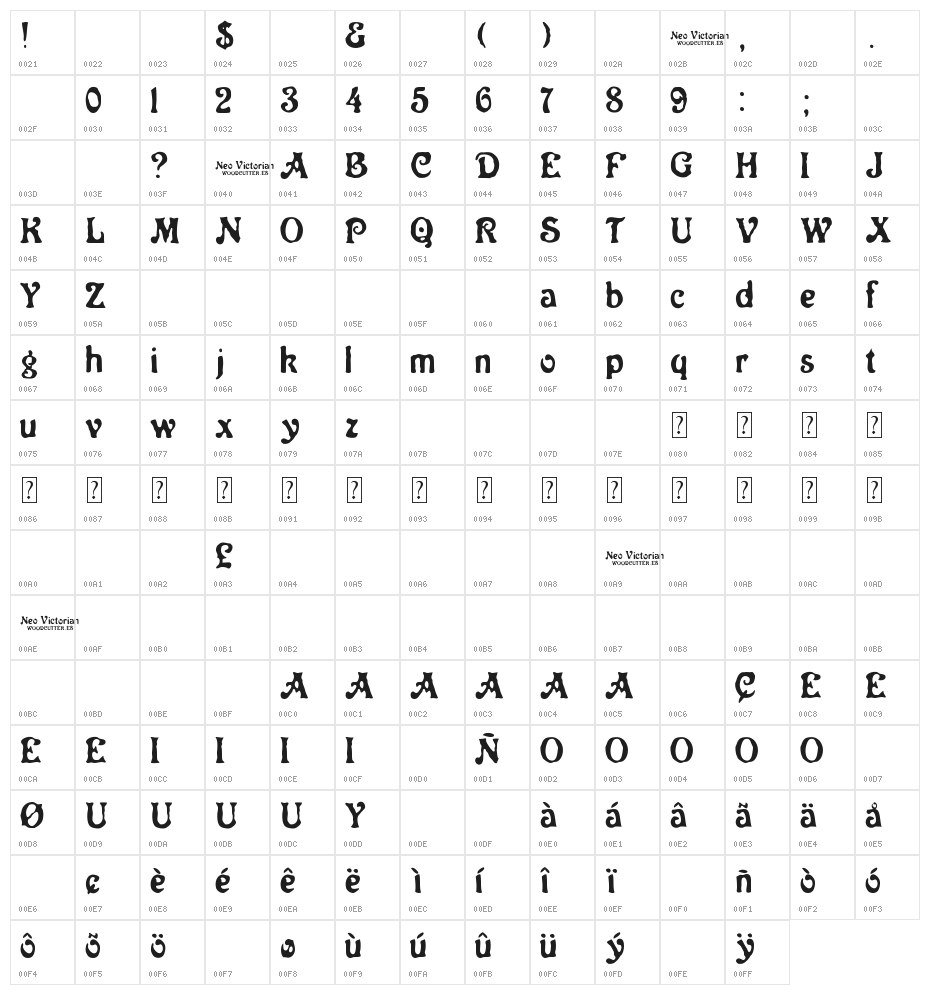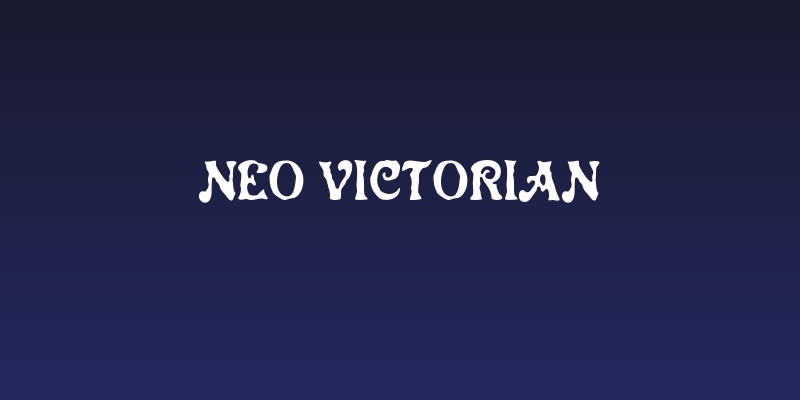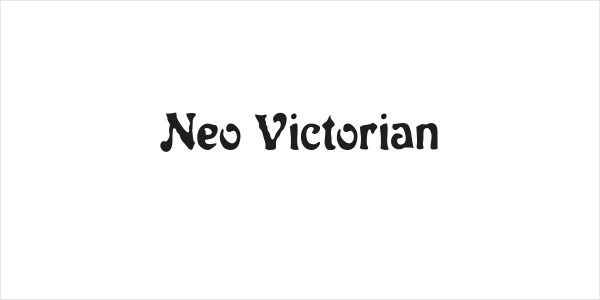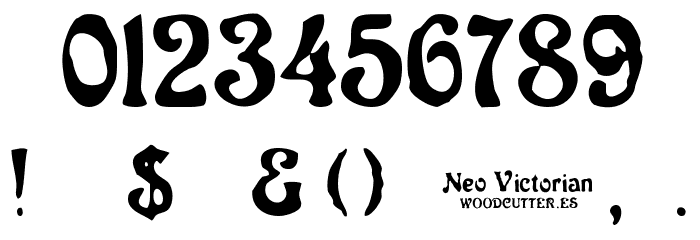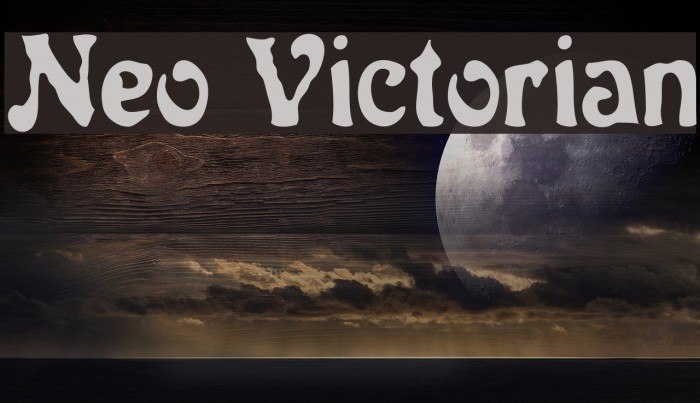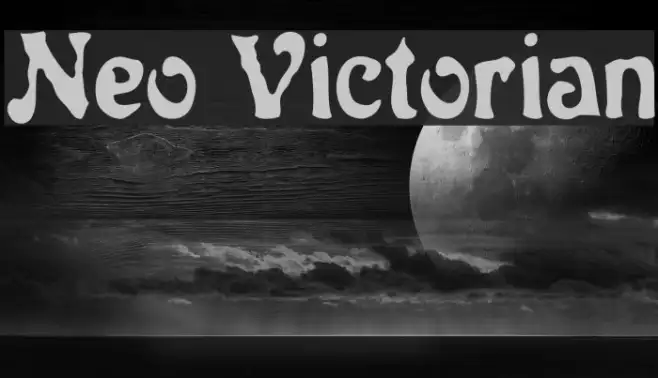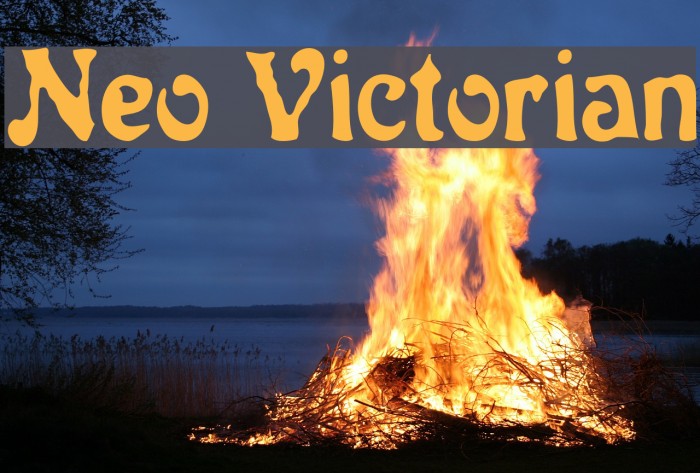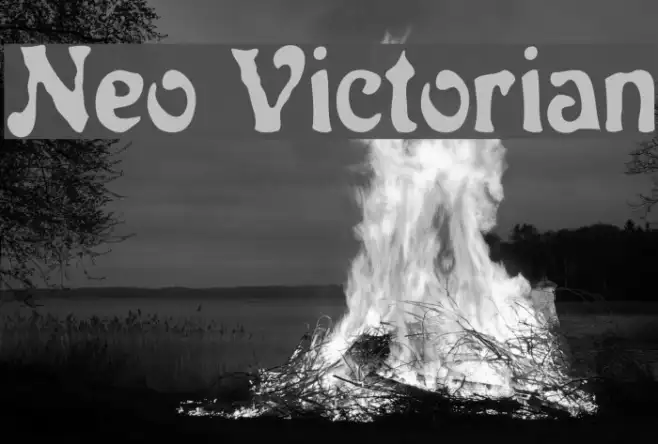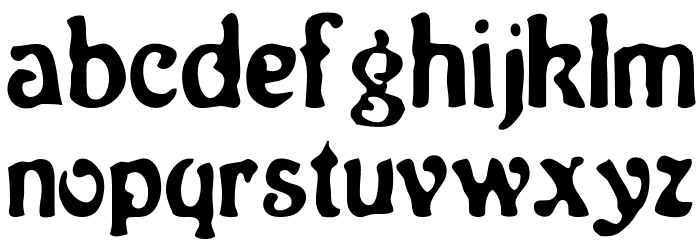
Neo Victorian Font
Neo Victorian Description
This font exhibits a bold and decorative style, reminiscent of the Victorian era with a modern twist. The characters are ornate, featuring intricate curves and flourishes that give them a distinct, artistic appearance. The uppercase letters are particularly elaborate, with unique serifs and embellishments that enhance their visual appeal. The lowercase letters maintain a consistent style, offering a harmonious blend of elegance and readability. Numbers and special characters are equally stylized, ensuring a cohesive look across all text elements. This font's dramatic flair makes it ideal for projects that require a touch of vintage sophistication.